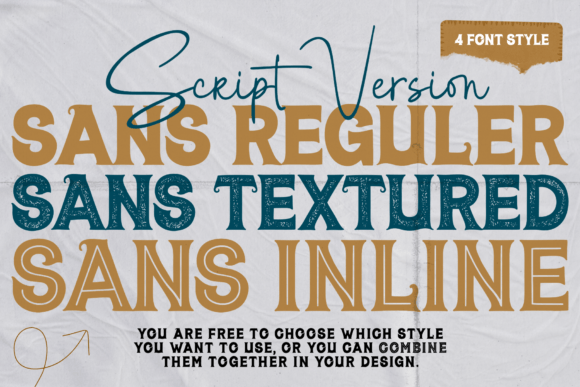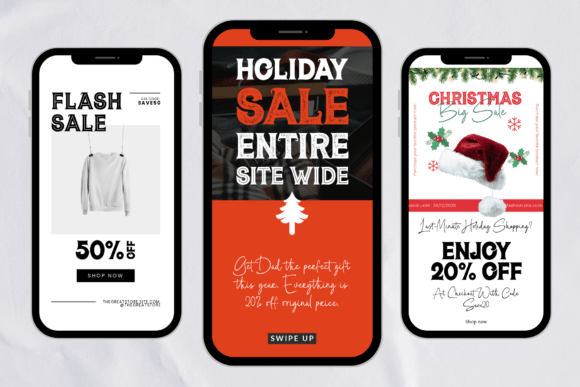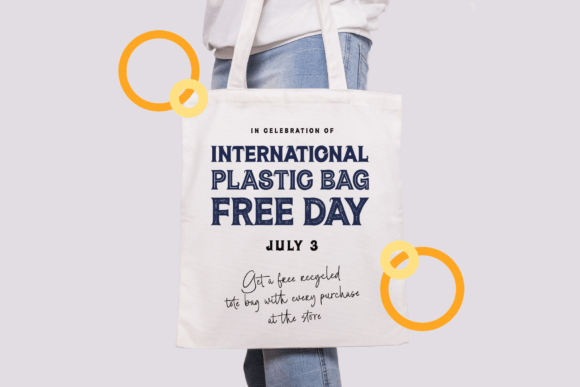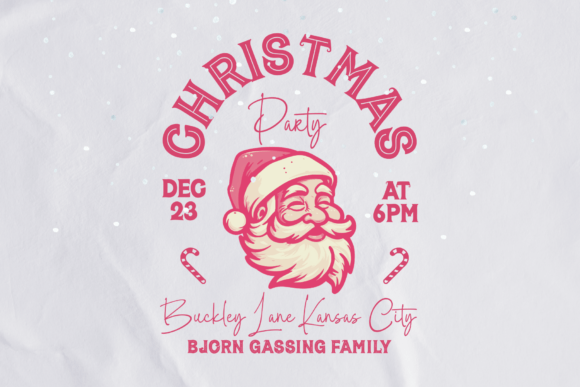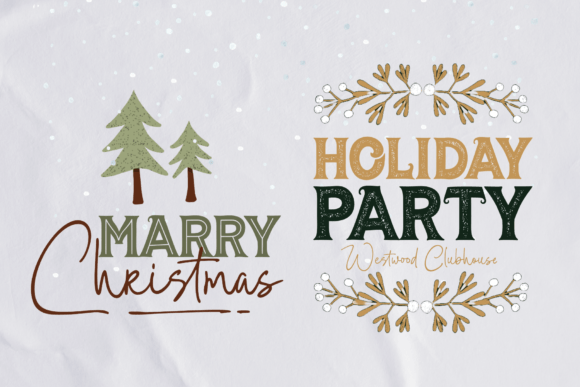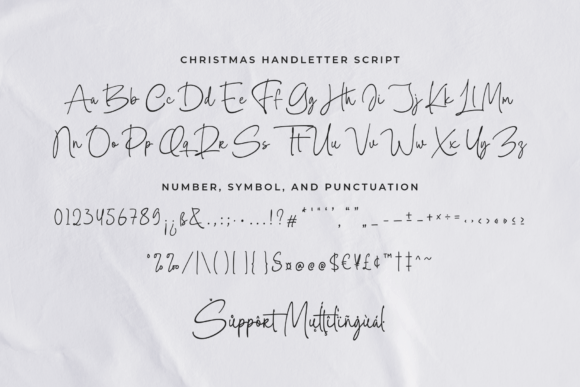
Introduction to Christmas Handletter Font
Christmas Handletter is a beautifully crafted hand-lettered display typeface, perfect for adding a festive and cozy touch to any holiday-themed project.
With its stylish blend of script and sans-serif styles, this font gives off a warm, handcrafted feel, ideal for Christmas cards, invitations, or festive designs It embodies the magic of the holiday season, combining elegance with versatility, making it the perfect choice for any Christmas-themed project.
Key Features of Christmas Handletter Font
Why Choose Christmas Handletter Font?
Christmas Handletter Font offers exceptional quality and versatility, making it a valuable addition to your design toolkit. Whether you’re creating for personal projects or commercial use, Christmas Handletter Font delivers professional results.